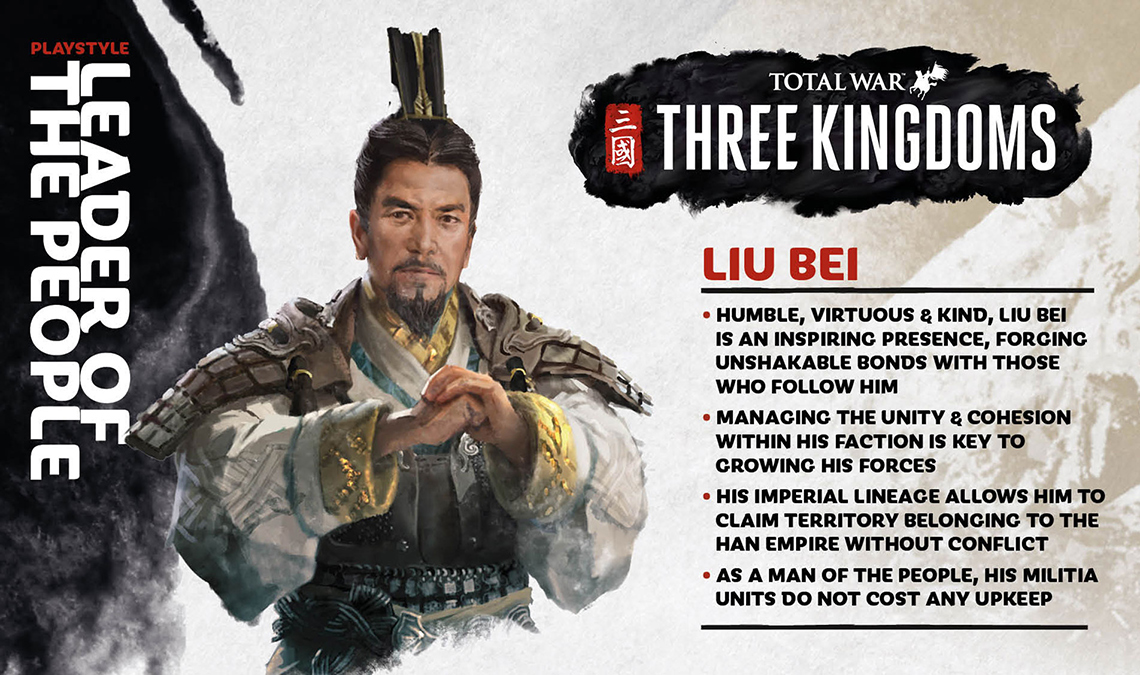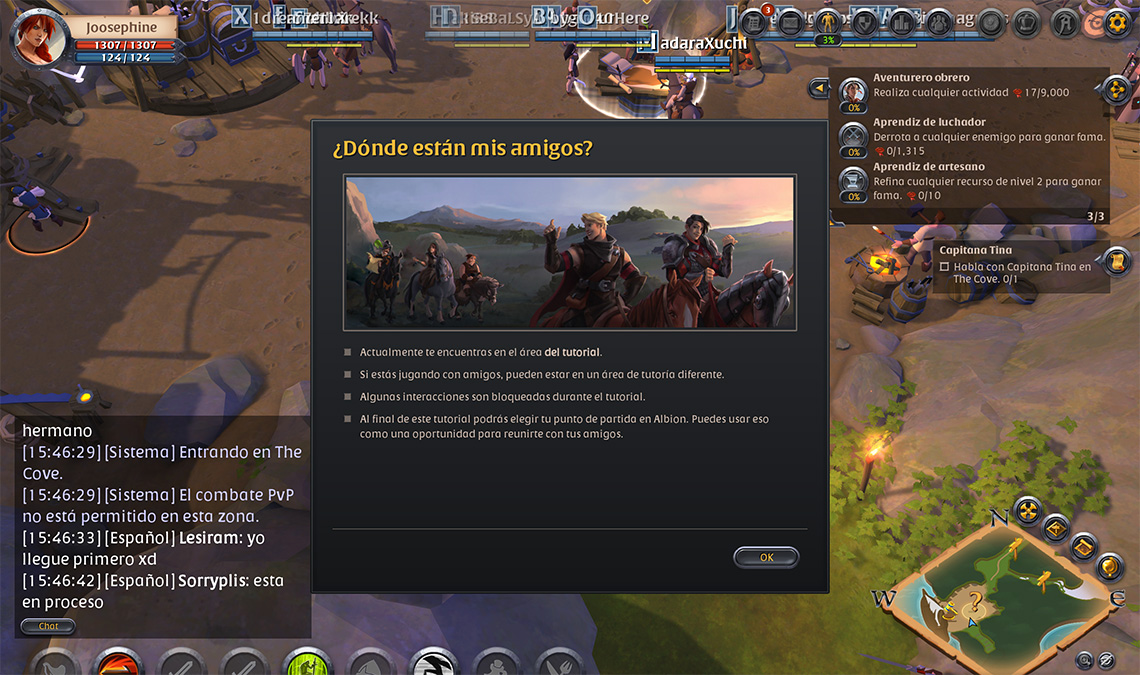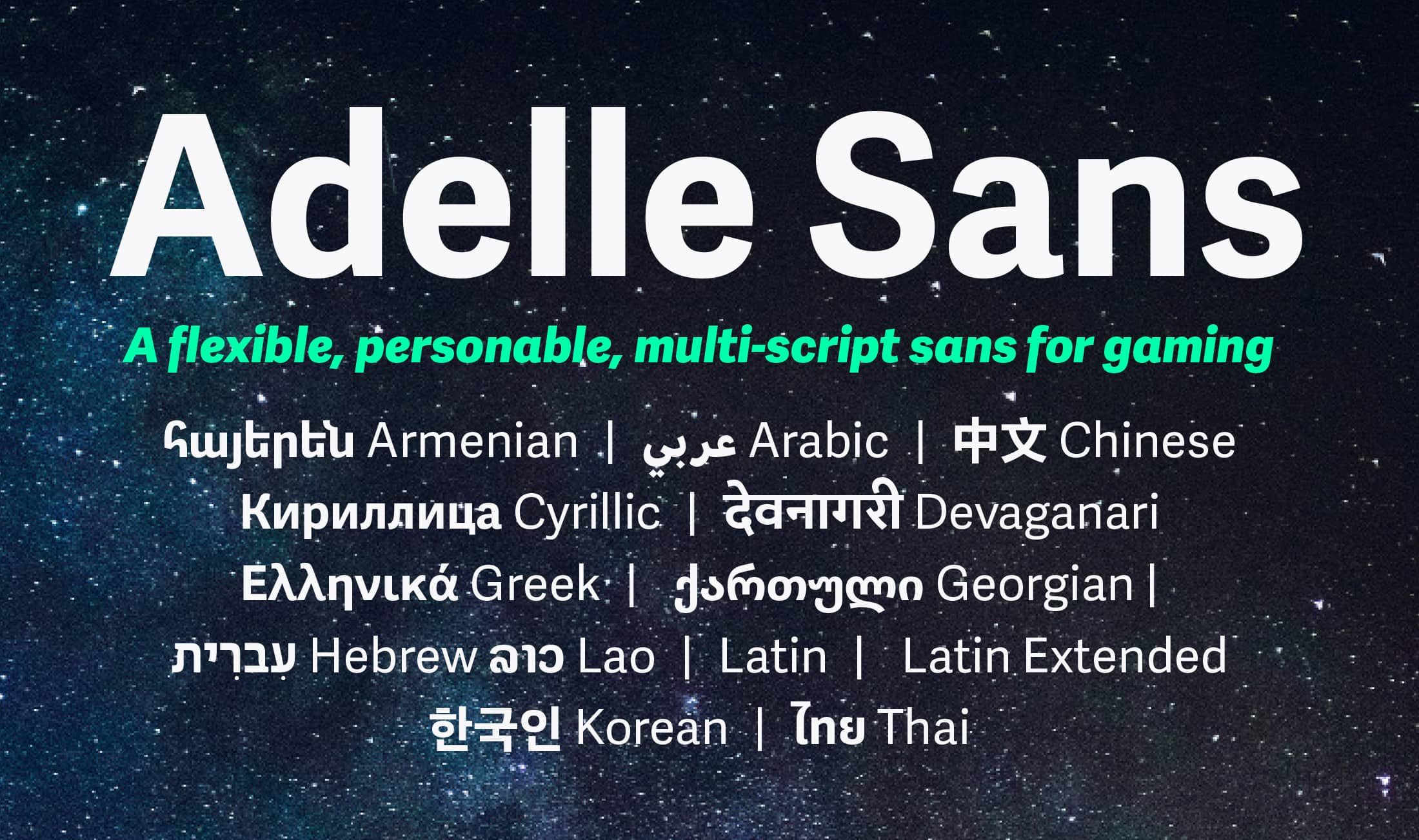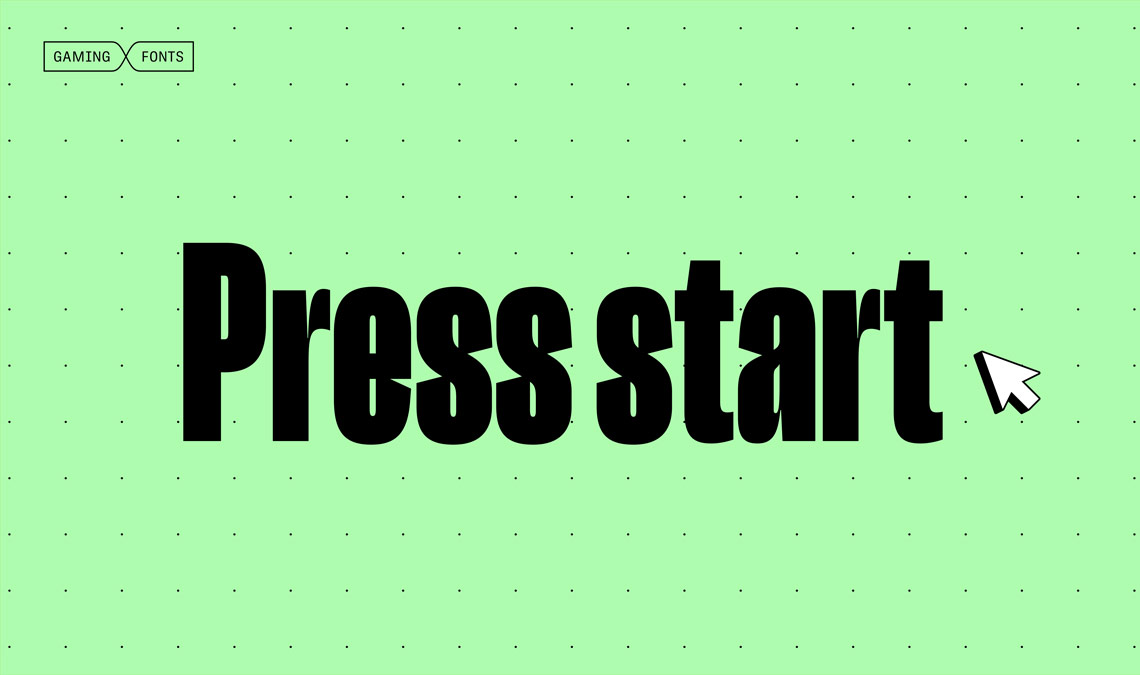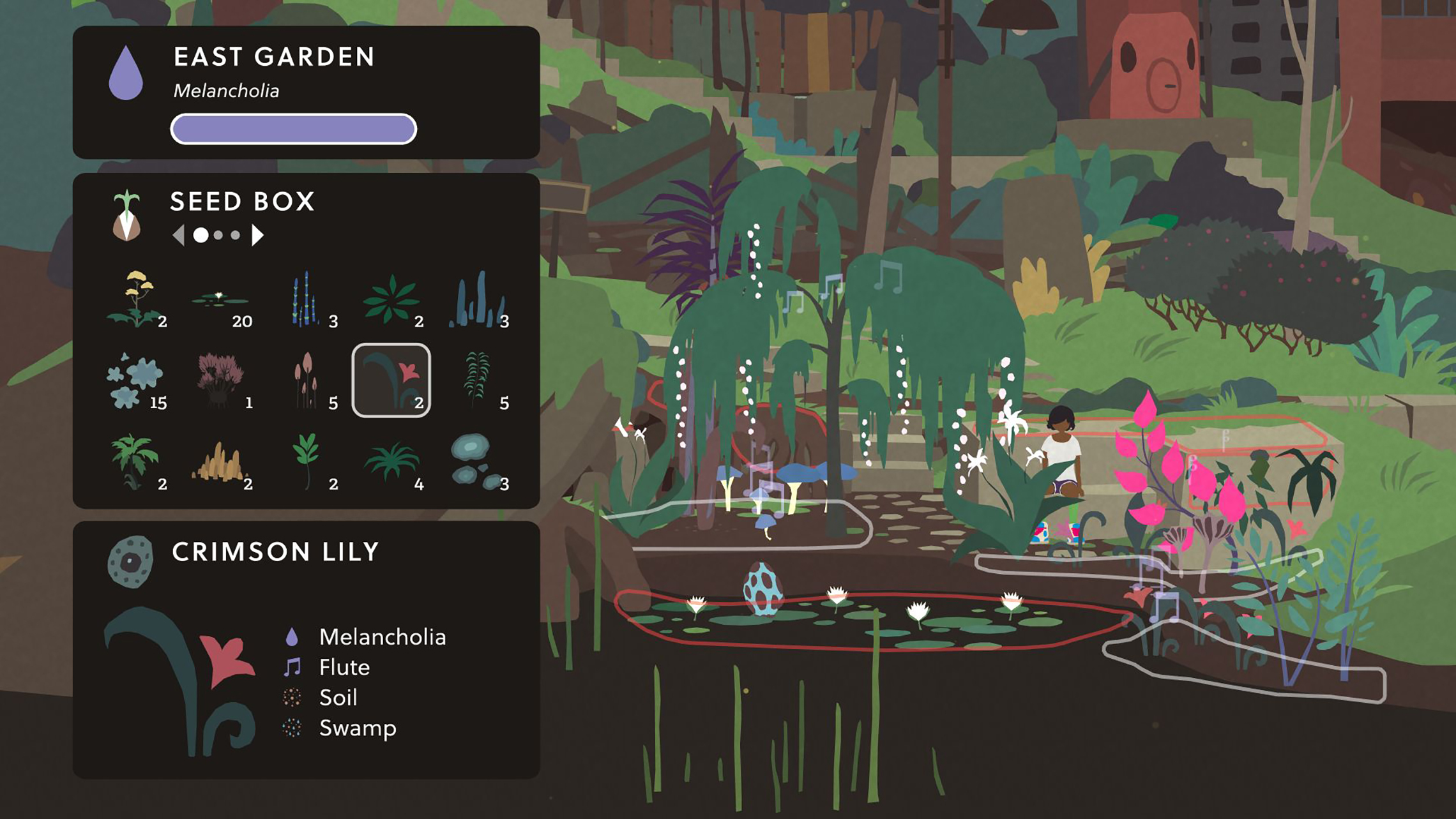
Fonts for gaming
Gaming is one of the largest entertainment segments in the world — bigger than movies and television combined, and more lucrative than them as well. Whether playing on a desktop computer, mobile device, or dedicated system, the perfect typeface will set the tone for the journey. What does that look like?
Tone of voice
From the primary logo of the game brand, to equipment menus and mission briefings, typography is the underlying voice of a video game. If done correctly, the right font selection can bring a game to life, helping to reinforce the overall atmosphere and clearly conveying the instructions necessary to progress. Every detail matters when creating a successful gaming experience, and the chosen font is no exception.
Iskra was used in the strategy game Total War: Three Kingdoms, developed by Creative Assembly and published by Sega.
Alverata, Gerard Unger’s eclectic interpretation of the Romanesque style, was chosen for Albion Online, a medieval-based online game with millions of users. The game takes advantage not only of the extensive Latin language support of Alverata, but also its multiscript support by using Alverata Cyrillic for the Russian version.
Function, language & accessibility
Making information accessible to every player is a key consideration, so choosing the right font can greatly improve the game experience, especially for those with compromised vision. When dealing with letterforms, there are certain design features that can help promote legibility, such as a larger x-height for smaller text, unambiguous letter shapes which are clearly recognisable, open counters, good spacing, and a thorough approach to kerning. Of course, the actual implementation of the fonts is also very important, and developers need to carefully consider font quality, font style, font size, line length, line height, hierarchy, colour, and tonal contrast to name a few.
The video game community is not just centred on the English-speaking world or those using the Latin alphabet. Well-produced fonts which support more complex script systems allow typography within a game to maintain a consistent look and feel, whether that’s for players based in Europe, the Middle East, India, or Asia. Many contemporary typefaces now support a range of the world’s languages and are conceived from the outset to work harmoniously as a multiscript family.
Some design features to consider when selecting an accessible font for a game’s user interface. Karmina Sans (shown) is an ideal choice for carrying information, especially when put to work at text sizes.
Adelle Sans multiscript is a typeface for global brands and products, thanks to its unparalleled script and language repertoire. The Latin has pan-European, pan-African, and Vietnamese support, covering over 400 languages. In addition, designers from around the world have come together to create Arabic, Armenian, Chinese, Cyrillic, Devanagari, Georgian, Greek, Hangul, Hebrew, Lao, and Thai counterparts of Adelle Sans.
The magic of variable fonts
Variable fonts (or formally, OpenType Font Variations) are a relatively new format which allows for multiple weights and styles to be contained in a single font file as predefined instances. The resulting file is considerably smaller than the equivalent static font files and means easier installation and access to almost-infinite styles between those predefined instances.
From an accessibility point of view, a variable font can respond dynamically to the context in which it is used, with many practical applications for user interface design. For example, if the design space supports a width or optical axis, it could become narrower when there is less horizontal space to set the text, or switch to a version with a larger x-height and slightly more weight for smaller text.
Custom typefaces
Whether there’s a requirement for a single style or an entire family with additional language support, a custom font that’s developed in collaboration with a type foundry can offer complete typographic control within a game. From a branding perspective, a bespoke font can help to make the typography instantly recognisable across a range of game titles and facilitate a unified brand experience.
With a history of gaming typefaces — from Spore or Burly Men at Sea to Three Kingdoms: Total War or Sneaky Sasquatch — we at TypeTogether are expert partners in developing custom fonts for gaming environments. In this way, each font choice can be dialled in precisely to create the best experience, make the best use of aesthetic tone, be functionally adept, and tell the game’s story effectively. Whether the font is a completely new, tailor-made design or a modification based on one of our existing library fonts, find out more about licensing, consultancy, or custom font creation by contacting .
Cinco Design was hired by Electronic Arts to develop an integrated identity system for Spore. As part of this project a new custom typeface was commissioned. TypeTogether partnered with Pete McCracken (The Portland Type Company) on the development of Spore’s three-weight tailored type family.
Soleil in use in the adventure game Mutazione by Akupara Games.